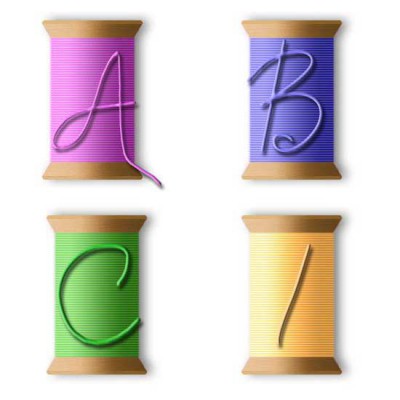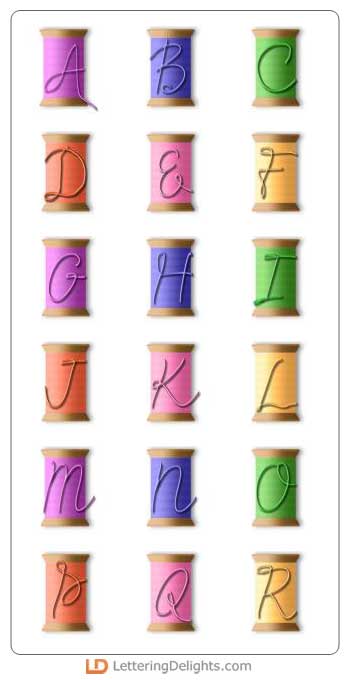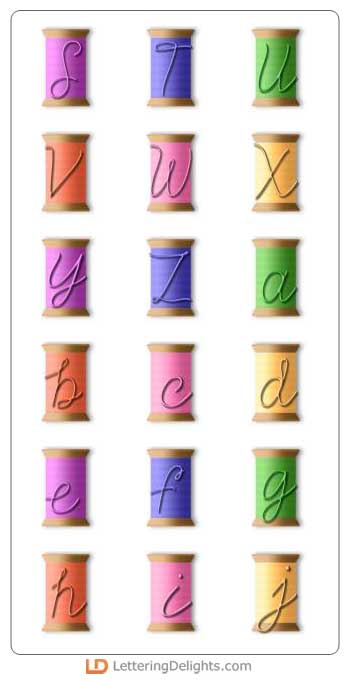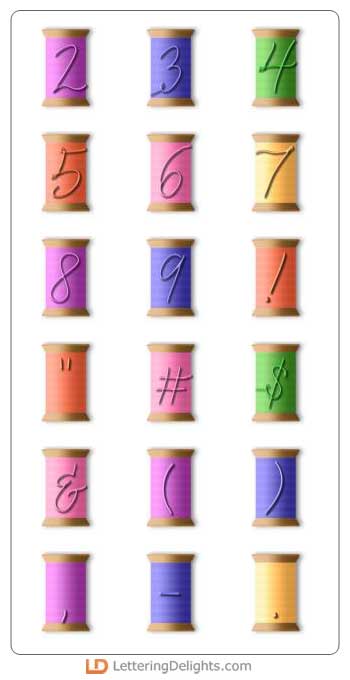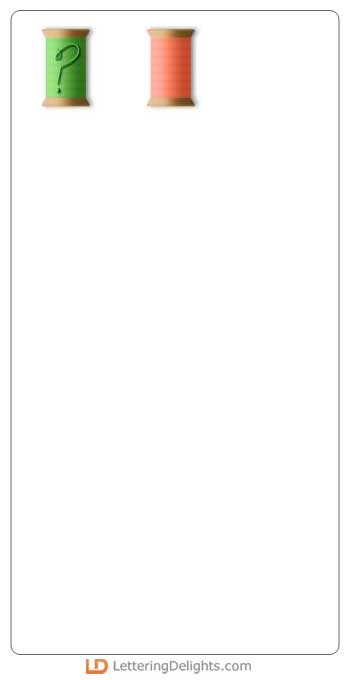
It's time to get that sewing project done. Each letter of this alphabet looks like thread and they are positioned on a spool of thread. It's wonderful for that crafty scrapbook layout.